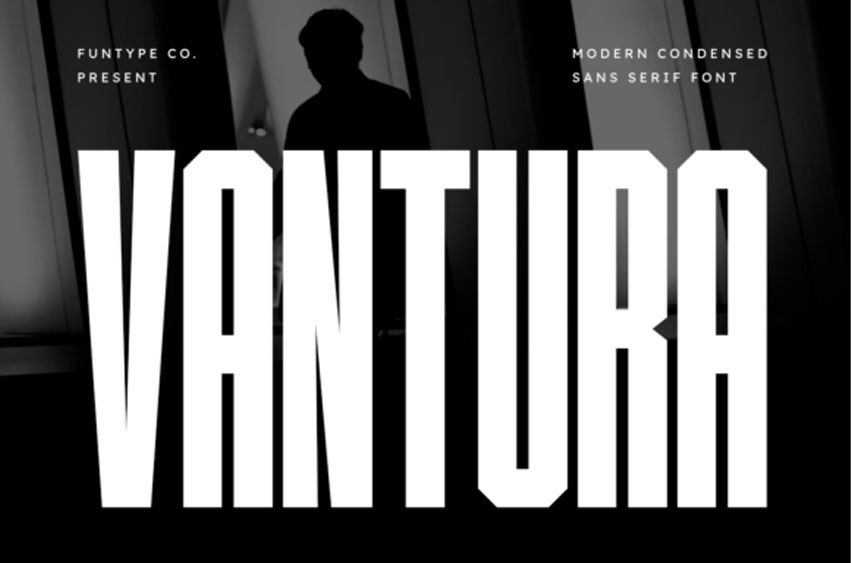
Vantura Font is a towering, robust, and heavily stylized modern condensed sans serif font engineered for precise, high-impact professional branding and product design.
Showcasing an ultra-narrow geometric block layout, thick strokes, and sharp chamfered corner details, this font is exceptionally qualified for commanding headlines, aggressive urban streetwear clothing labels, custom sports jerseys, vinyl decals, and digital event posters. Its authoritative, tall, and perfectly balanced presentation infuses physical custom merchandise and screen prints with an advanced, cutting-edge industrial aesthetic.